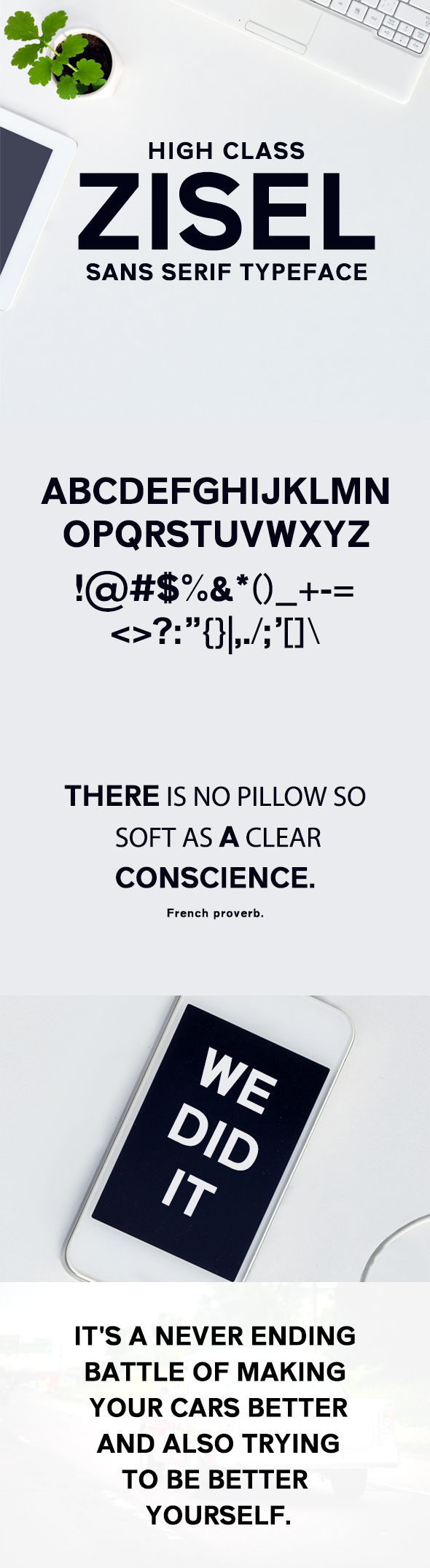
Zisel Sans Serif font is a set of 5 weights and it is good for making creative displays and it has art-deco touch. It’s a lovely and unique serif font in our store, allowing you to make each word look completely stylish! It Suits best for modern / clean designs, logos, headlines, banners and templates etc. It looks gorgeous in all caps with a wide-set spacing if you want to try a classy look, or beautiful on its own in capital and lowercase letters for something completely timeless.
- Regular, Black, Thin, Light and Outline Weights
- Extras: Uppercase Multilingual Letters, Lowercase Multilingual Letters, Numbers & Punctuation + Alternatives.
- Updates : Added 1 More Blur Weight